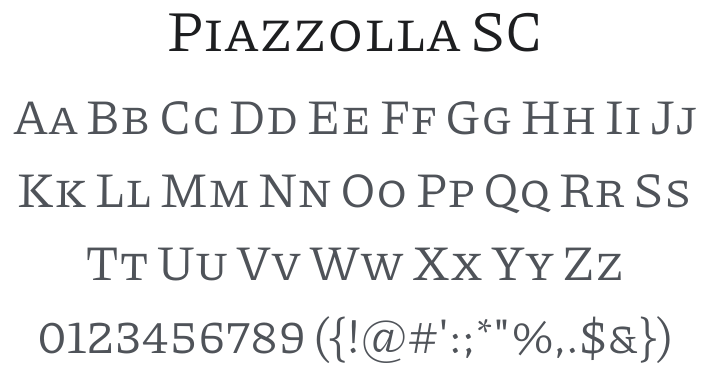
About Piazzolla SC
Piazzolla is a type system intended for optimizing the available space in press media and other publications. It has a compact appearance which allows for small font sizes and tight leading while achieving solid lines and robust paragraphs. It has a distinctive voice that conveys a personal style, especially in display sizes. It has great performance and readability in small point sizes and long texts, both for screen and printing.
Designed by Juan Pablo del Peral for Huerta Tipográfica.
This is the Small Cap sibling family to the main Piazzolla family.